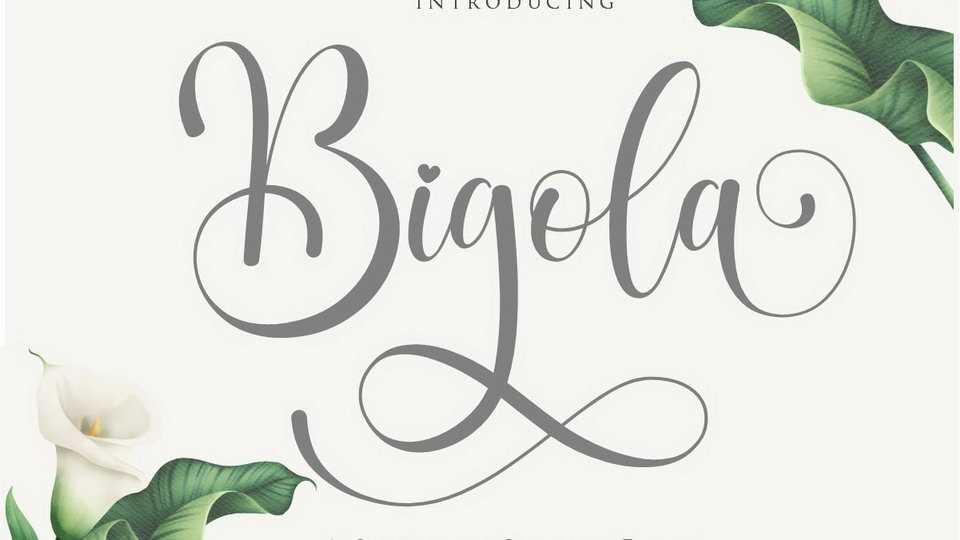
Download Bigola script, a unique, cute and sweety stylistic calligraphy font. Bigola’s hand look style makes perfect to use for invitation, stationery, wedding designs, social media posts, advertisements, label, photography and more.
Designer: Gilar Studio